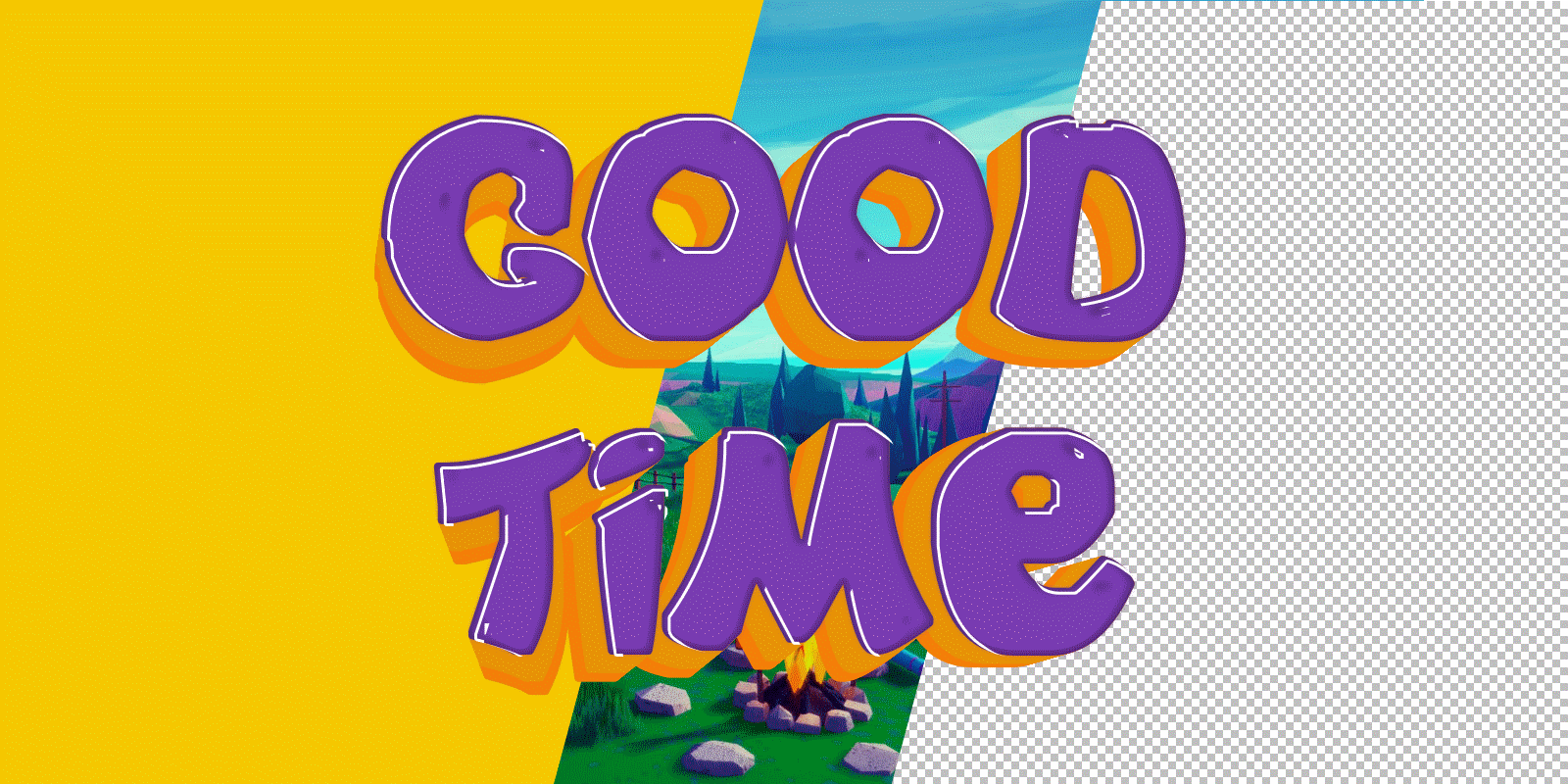
Text style effect is a beautiful font with a bright effect
Beautiful 3D text for the channel header or video preview
Font style with scratches, gradient line and glow
Beautiful text effect 3d luminous style sticker for font with scratch effect
The inscription is a font with a beautiful effect for the channel header or video preview,
Cool 3d logo text effect 3d lettering with highlights and volumetric effect
Font style for a beautiful bright 3d lettering with a glare effect